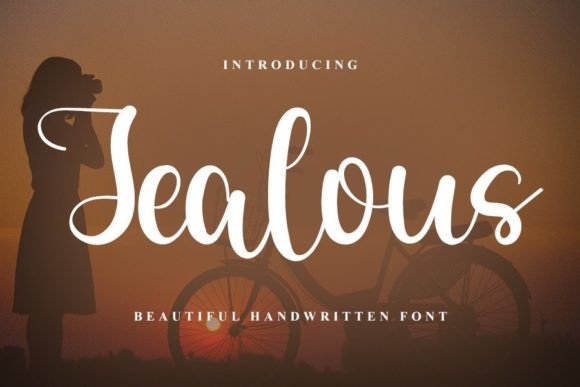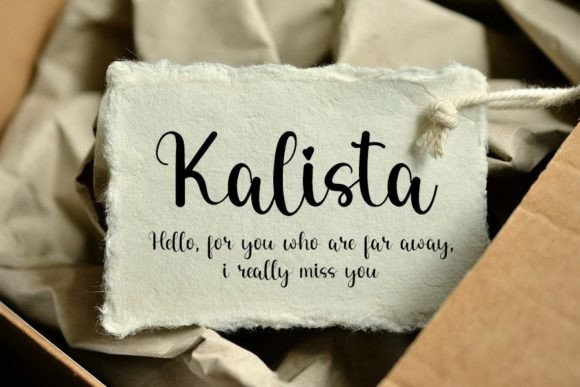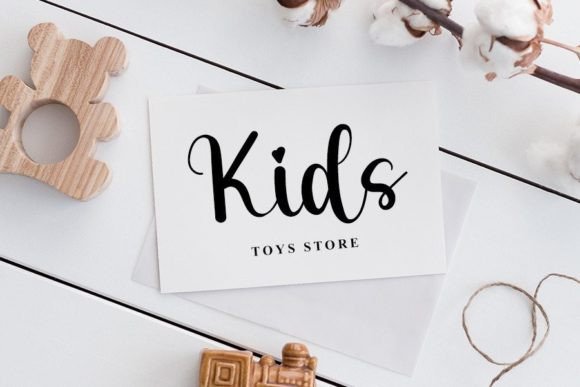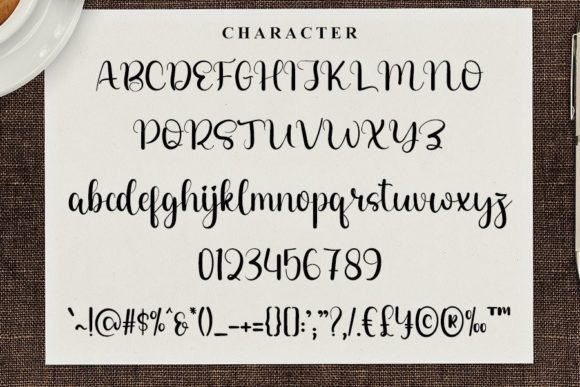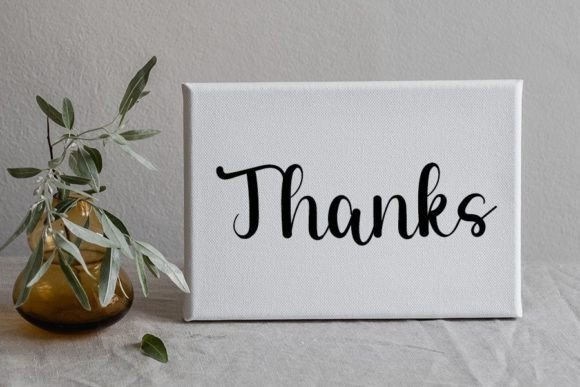
Jealous Font
About Jealous Font
Introducing Jealous, a neat and beautiful handwritten font distinguished by its elegant touch, ideal for a variety of creative projects. This font’s distinct and timeless style sets it apart, inviting you to fall in love with its sophistication and use it to create spectacular designs that leave a lasting impression.
Jealous brings an elegant and refined vibe to your text with its carefully crafted letterforms. The beauty of its design lies in its simplicity, making it suitable for a wide range of applications.
Imagine using Jealous for invitations, where its neat and elegant style enhances the formality and charm of the event. In quotes, posters, or branding materials, this font adds a touch of timeless beauty, making your messages stand out.
For any project that requires a handwritten and sophisticated feel, Jealous is ready to shine. Its versatility makes it suitable for logos, packaging, headlines, and other design elements where a distinct and elegant touch is desired.
Whether you’re working on digital or print materials, Jealous is poised to be the handwritten font that elevates the visual appeal of your projects. Its timeless style ensures that your designs will remain classic and sophisticated.
In conclusion, Jealous is more than just a font; it’s a design tool that invites you to infuse your projects with an elegant touch. Whether you’re working on invitations, branding, or other creative designs, Jealous is prepared to be the font that adds a touch of timeless beauty to your work.